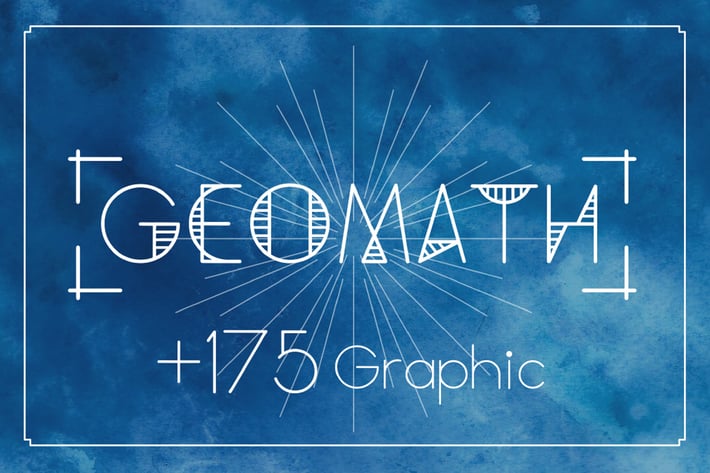
Geomath Fonts + 175 Ornament
GeoMath - Font & Graphic
Light and Smooth Version. Inspired by geometry graph and math. Suitable for logo designs, branding design and graphic project.
175 Ornament ( 35 Long Shape, 35 Long Sketch Shape , 35 Banner, 35 Sun Burst and 35 Geometry Flower). All ornament in "stroke" / "Line" so you can change thickness and color as you like.